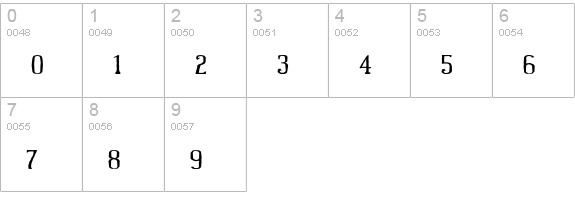
McFoodPoisoning5 Font Details
Introducing McFoodPoisoning5 font - a bold and eye-catching typeface designed to make a statement. Inspired by the world of fast food and consumer culture, this font features a unique blend of sharp angles and playful curves that will surely grab attention. McFoodPoisoning5 font is perfect for creating impactful headlines, posters, and branding materials that demand to be noticed. Its distinctive style exudes a sense of modernity and edginess, making it ideal for projects that require a touch of attitude. Best of all, McFoodPoisoning5 font is completely free to download at FontsMarket.com. Whether you're a designer looking to add a bit of flair to your work or a business owner in need of a bold new font for your marketing materials, McFoodPoisoning5 font is the perfect choice. Download it today and unleash your creativity with this dynamic and attention-grabbing typeface.